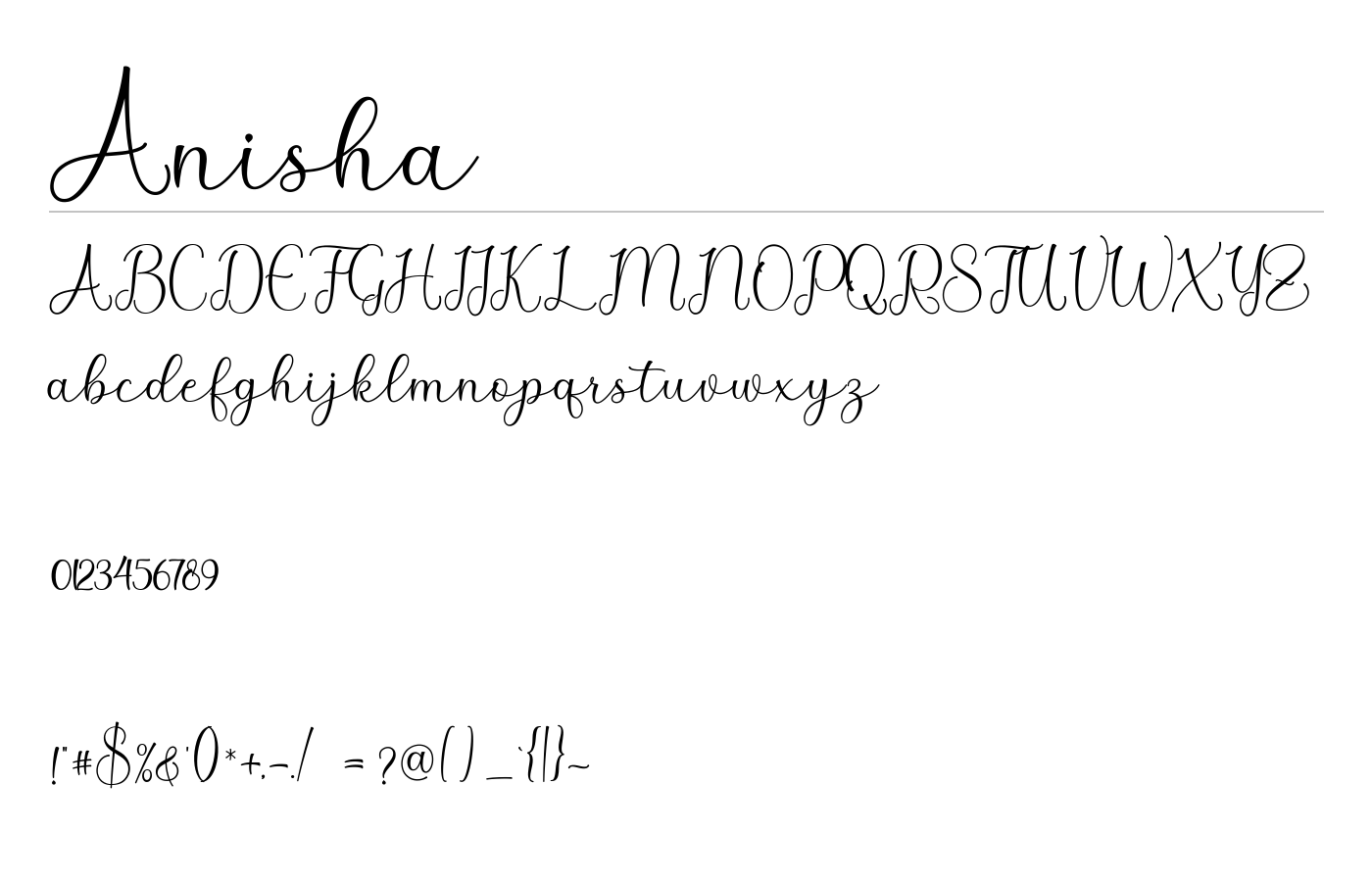
Anisha is a delicate and elegant script font that features thin, flowing strokes with a hand-drawn feel. Its slender and slightly whimsical letterforms create a graceful, refined look perfect for invitations, branding, and feminine or creative projects that seek a personal, artistic touch. This font works best for headlines and decorative uses where its ornate style can truly stand out.
Anisha Font